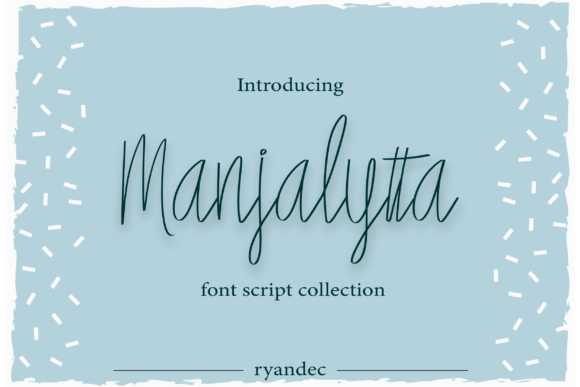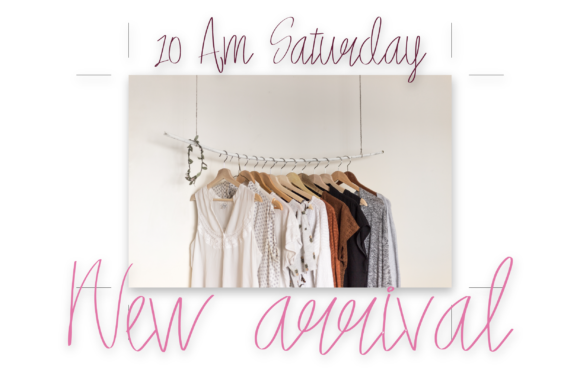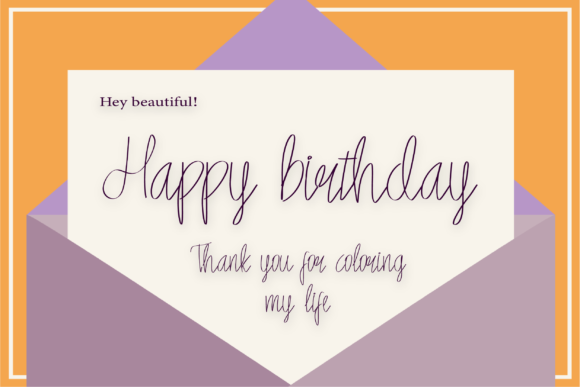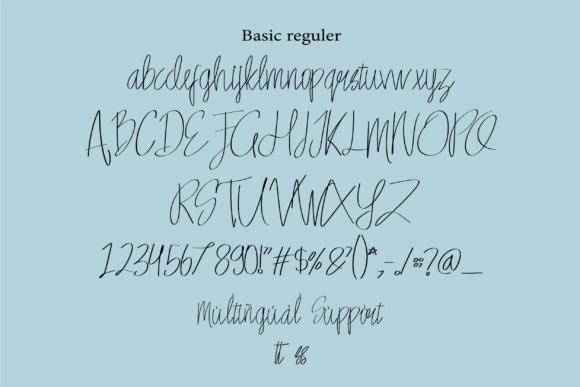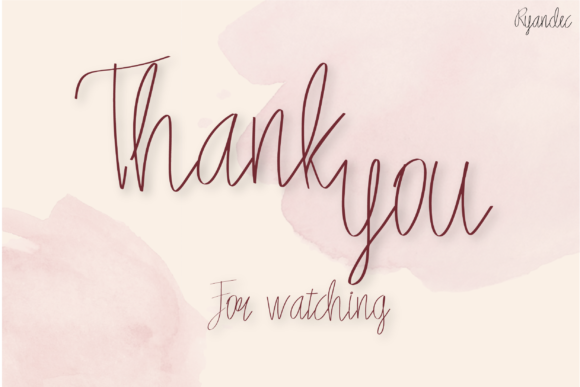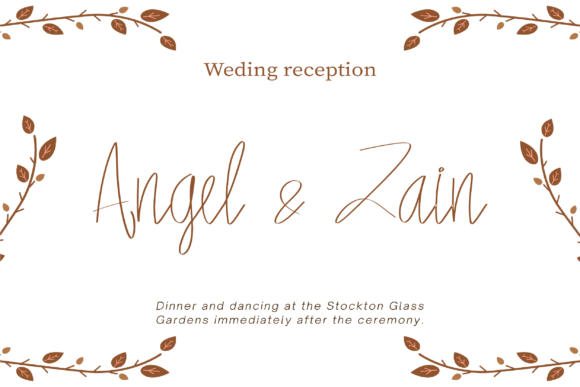
Manjalyta Font
About Manjalyta Font
Manjalyta is a sleek and elegant script font that lends a touch of sophistication to a wide range of design projects. With its slim lettered style, this font exudes a sense of refinement and modernity that adds a unique flair to any creative endeavor.
Ideal for occasions that call for a personalized and stylish touch, Manjalyta shines in the realm of wedding stationery. Its graceful and slender strokes make it a perfect choice for designing captivating wedding invitations that set the tone for a romantic and memorable celebration. The font’s sleek lines create an air of sophistication that complements the elegance of the occasion.
In addition to weddings, Manjalyta lends itself beautifully to crafting thank you cards. Its delicate and precise letterforms convey a sense of gratitude and appreciation, making your messages even more heartfelt and sincere. Whether you’re expressing your thanks for a special gift or a thoughtful gesture, the font’s refined aesthetic adds an extra layer of elegance.
Greeting cards take on a whole new level of charm with Manjalyta. Its slim lettered script brings an air of sophistication to your heartfelt messages, making your greetings feel more personal and impactful. Whether it’s a birthday, anniversary, or any other special occasion, the font’s stylish and unique design enhances the sentiment of your words.
When it comes to logos, Manjalyta offers a contemporary and polished look. Its sleek letterforms create a memorable and professional impression, making it well-suited for businesses and brands that want to convey a sense of modernity and sophistication. The font’s versatility ensures that it can adapt to various industries and styles.
Manjalyta’s slim lettered style also makes it a standout choice for a variety of design projects, including product packaging, editorial layouts, and website headers. Its clean and refined appearance adds a touch of elegance to any visual presentation, making it an excellent option for creating captivating and visually appealing content.
In conclusion, Manjalyta is a slim lettered script font that brings a sense of elegance and sophistication to a diverse range of design projects. Its sleek lines and refined aesthetic make it a fantastic choice for wedding invitations, thank you cards, greeting cards, logos, and more. Whether you’re aiming for a modern and stylish look or a touch of personalized elegance, Manjalyta is here to elevate your designs with its distinctive charm.